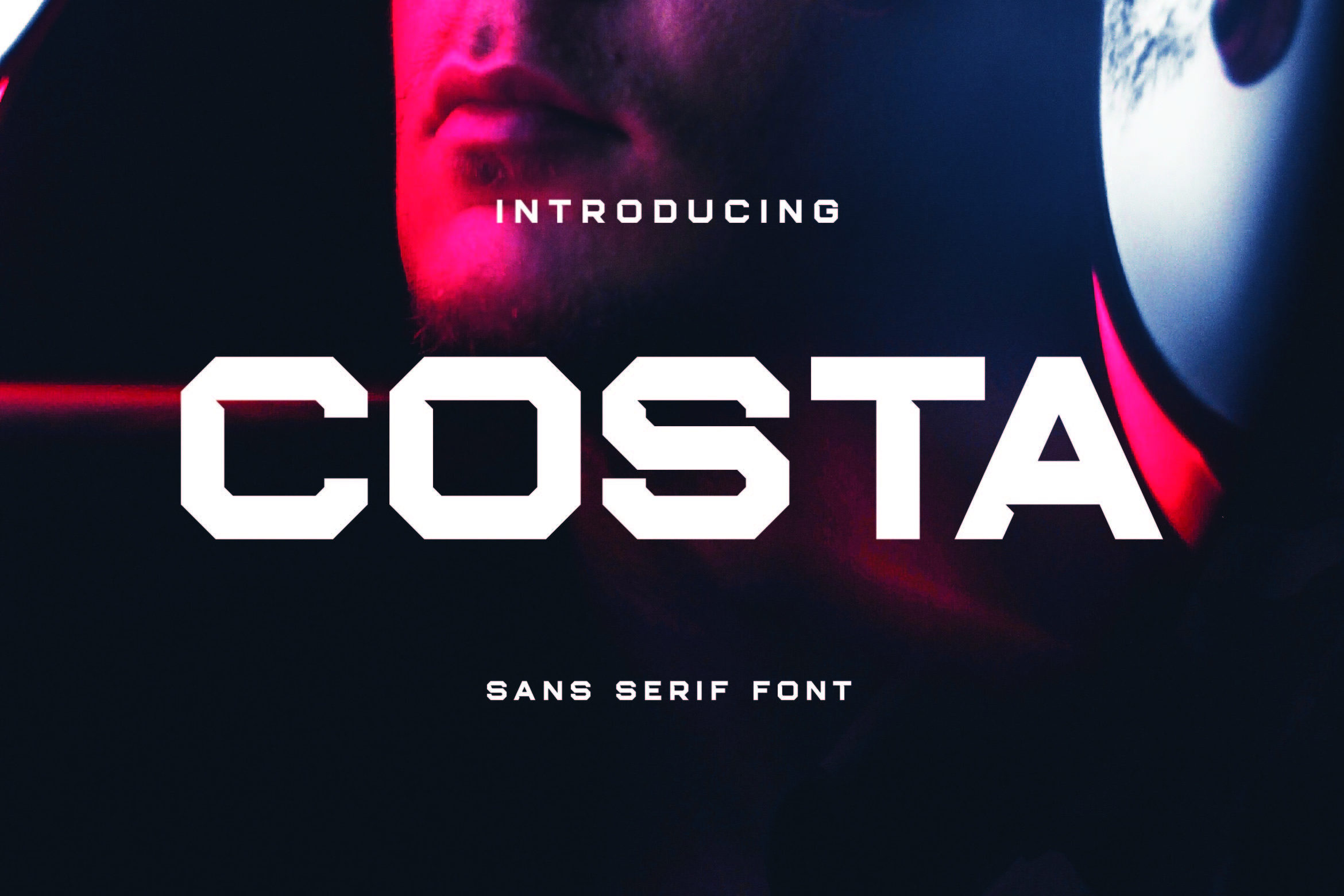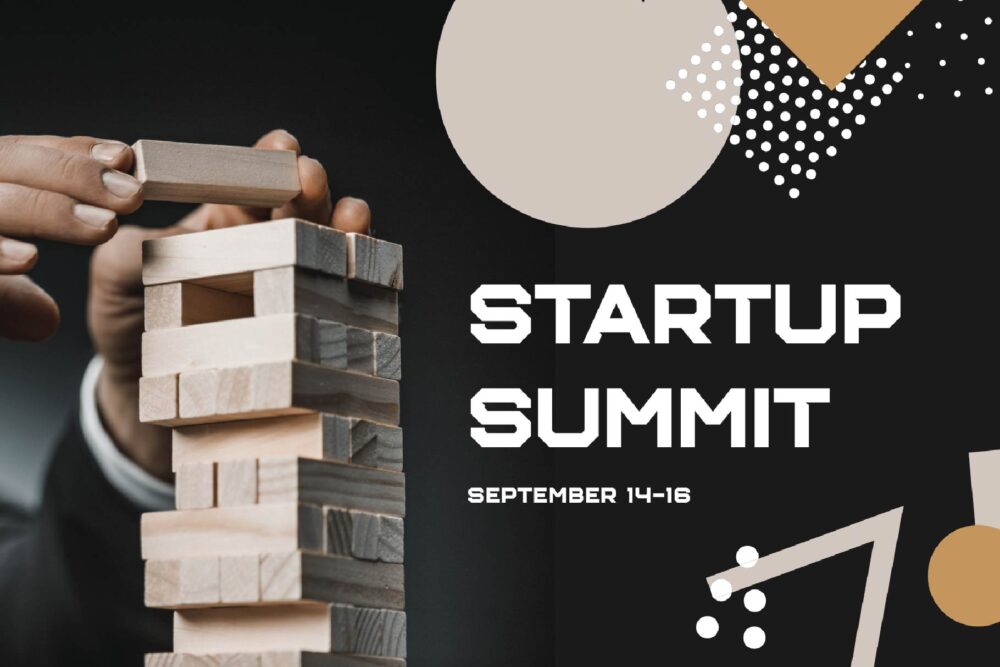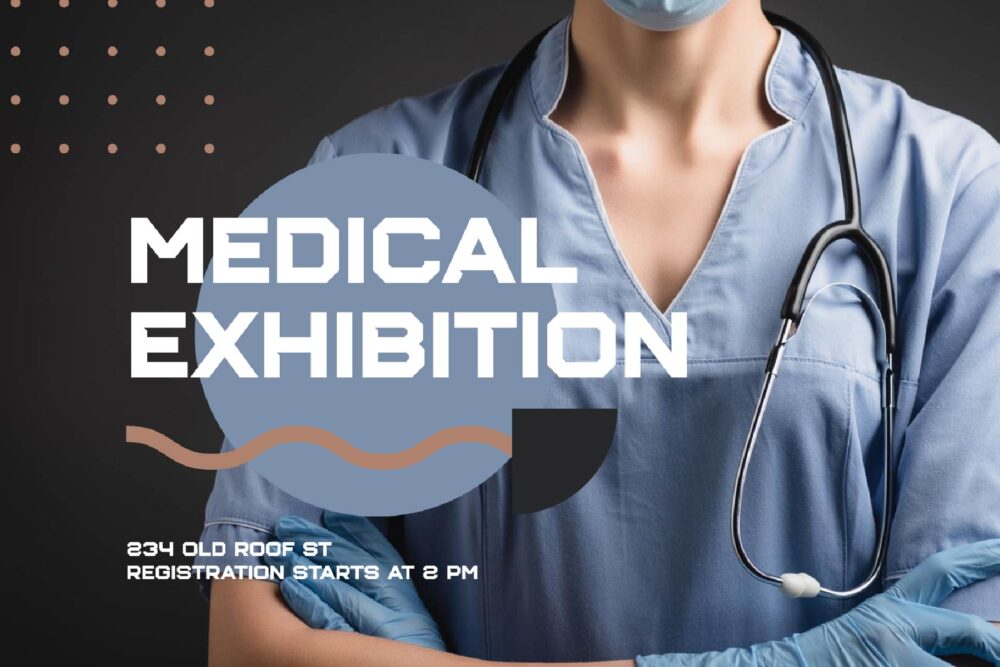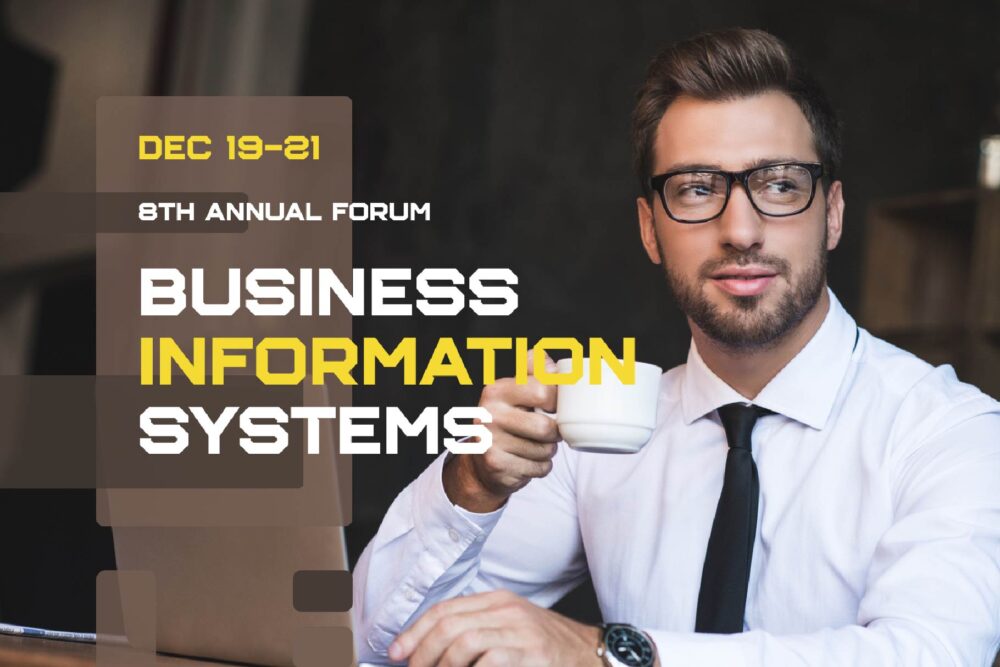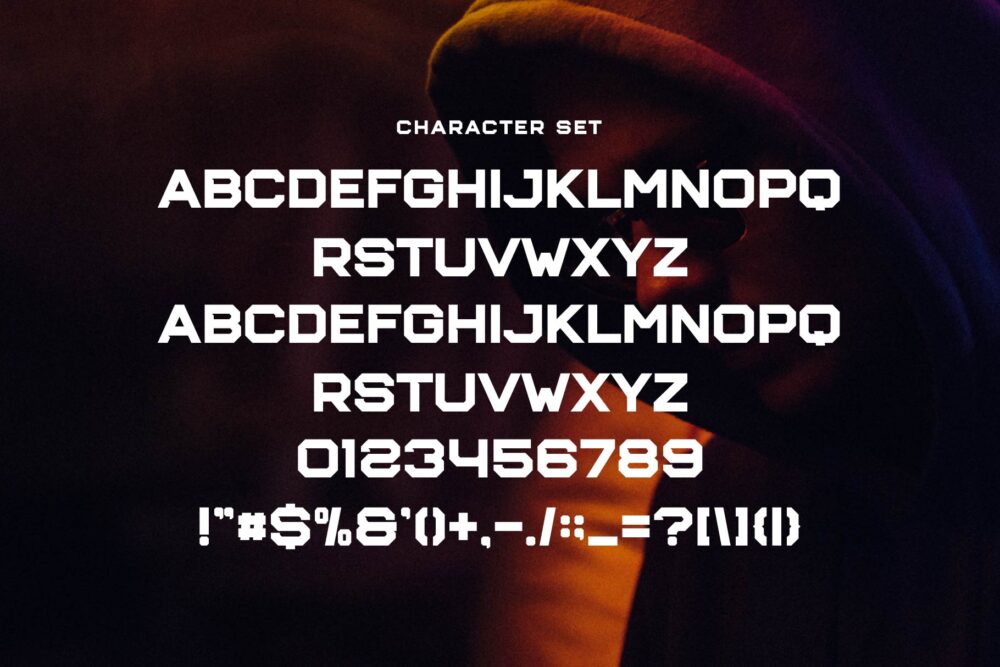
Costa
Costa Sans Font Typeface inspired by the famous minimalist logo perfect for the purposes of designing templates, brochures, videos, advertising branding, logos, invitation, layout design, elegant crafting, beauty design and other.
Costa – Sans Serif Font